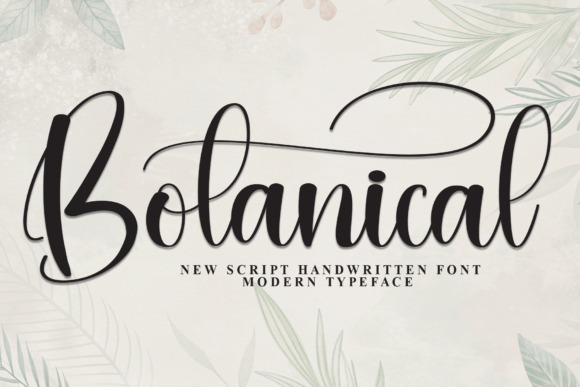
The Magic of Botanical Font: Elevating Designs with Elegance
I’ll never forget the moment I stumbled upon the perfect font for a wedding invitation project. I had been searching for what felt like hours, trying out font after font, but nothing seemed quite right. That was until I discovered Botanical, a stylish handwritten script font that exuded elegance and charm. Its fluid strokes and natural flow created a captivating, sophisticated look that perfectly captured the essence of the couple’s special day. In this article, I’ll share my love for Botanical Font, its features, and how to make the most of it in your designs.
An Honest Review of Botanical Font
So, what makes Botanical Font so special? Let’s dive into the good stuff! 😊
- ✨ Elegant and charming: Botanical Font has a way of adding a touch of sophistication to any design.
- ✅ Versatile: Whether you’re working on invitations, branding, or social media, this font adapts seamlessly.
- 🌟 Easy to read: Despite its elegant nature, Botanical Font remains clear and legible, even at smaller sizes.
Of course, no font is perfect, and Botanical has a few minor quirks:
- 🤔 Limited use in very small sizes: While Botanical Font is generally legible, it may not be the best choice for very small text or body copy.
- ⚠️ Some glyphs may require manual adjustment: Depending on your design, you may need to tweak certain glyphs to ensure they fit perfectly.
The Story Behind Botanical Font
While the true story behind Botanical Font may be unknown, it’s easy to imagine a designer inspired by the natural world, seeking to capture its elegance and charm in a font. Perhaps they spent hours pouring over sketches of flowers, leaves, and branches, seeking to distill their essence into a beautiful, flowing script. Whatever the inspiration, Botanical Font is a true gem.
Q: What makes Botanical Font so special?
A: Botanical Font’s unique blend of elegance, charm, and versatility makes it a standout choice for designers.
Q: Is Botanical Font difficult to read?
A: No, Botanical Font is generally easy to read, even at smaller sizes, making it a great choice for a wide range of design applications.